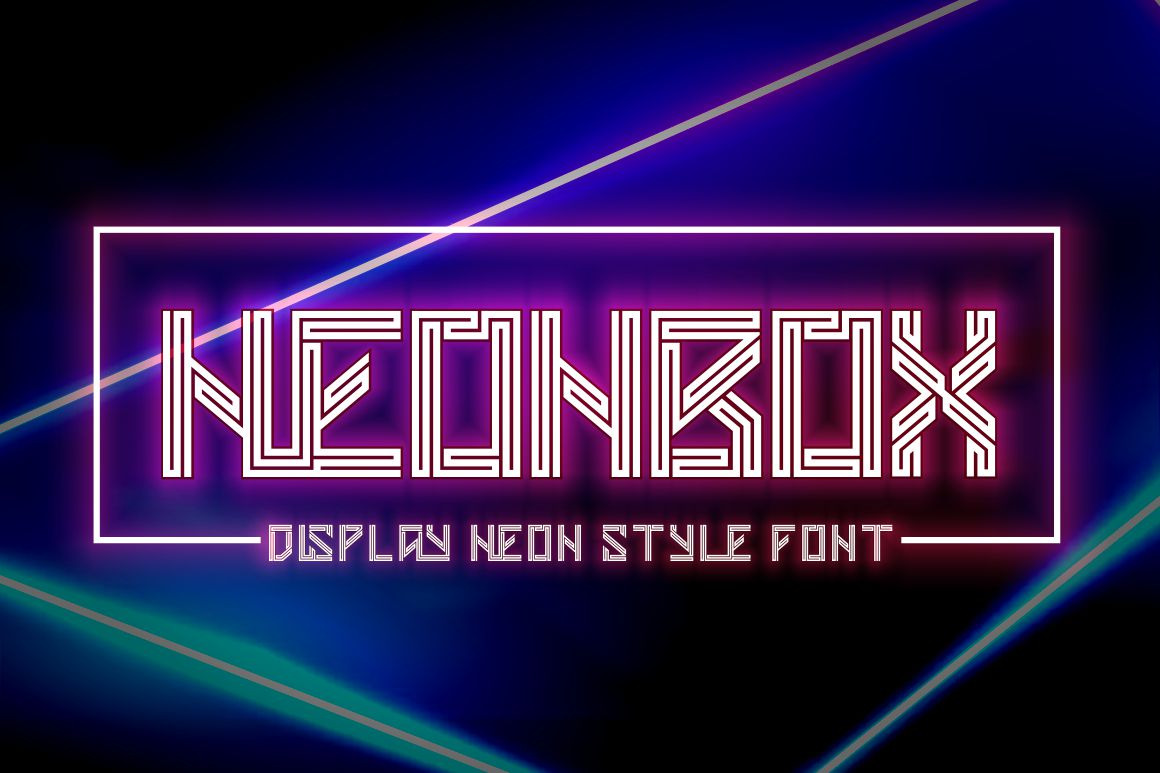
Neonbox - Display Neon Style Font
Introducing a new Futuristic Display Typeface Called “Neonbox”. Inspired from Modern Style, Digital, Neon Light, Futuristic Neon Art. Neonbox best uses for Logo, cover, poster, branding, UI, Titles, and many more. Neonbox is also support multi language.